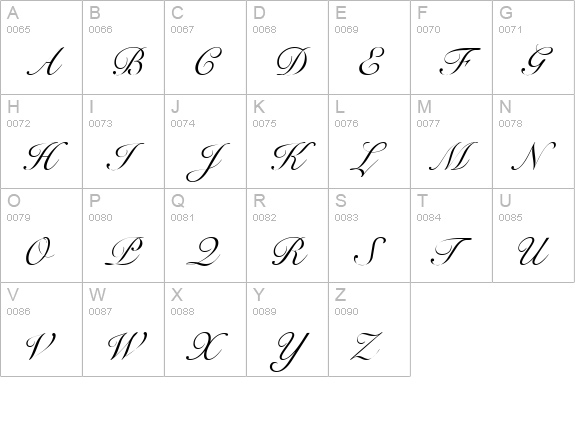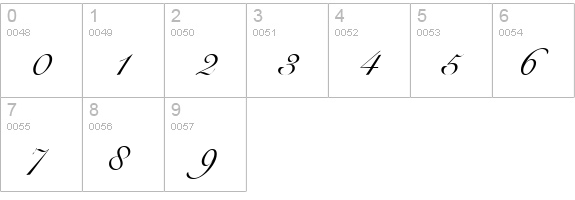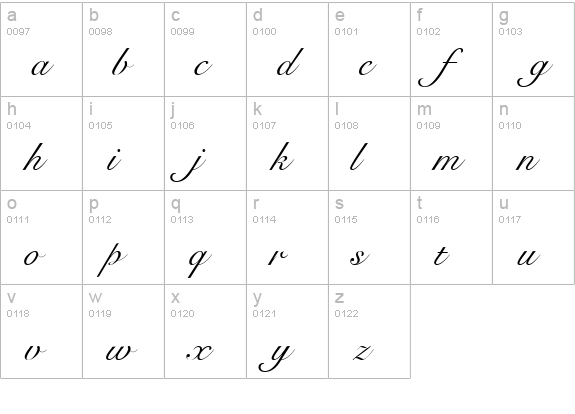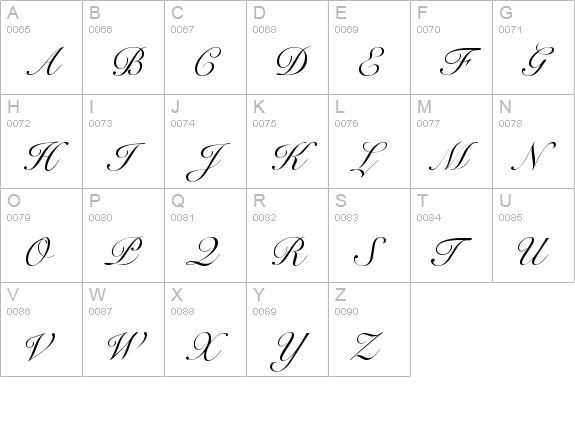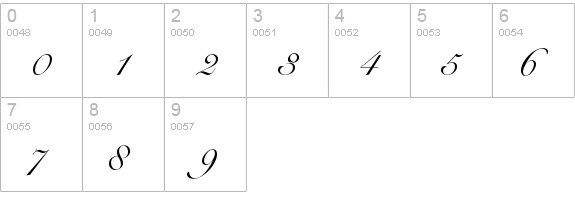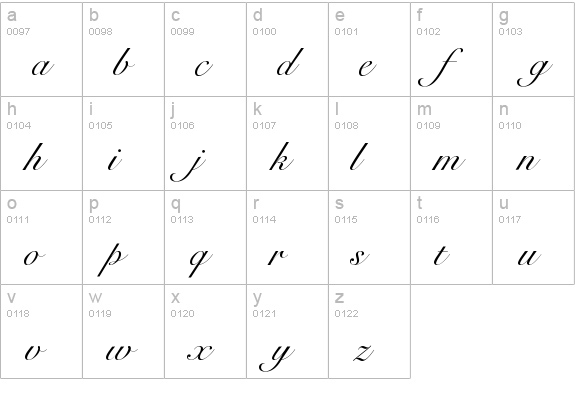
BravoScriptSSK Font Details
BravoScriptSSK font is a stylish and elegant script font that adds a touch of sophistication to any design project. With its flowing lines and modern aesthetic, this font is perfect for a wide range of applications, from branding to invitations to social media graphics. The best part? BravoScriptSSK is available for free download at FontsMarket.com. That's right, you can enhance your projects with this beautiful font without spending a dime. Don't miss out on the opportunity to elevate your designs with BravoScriptSSK - download it now and let your creativity shine!